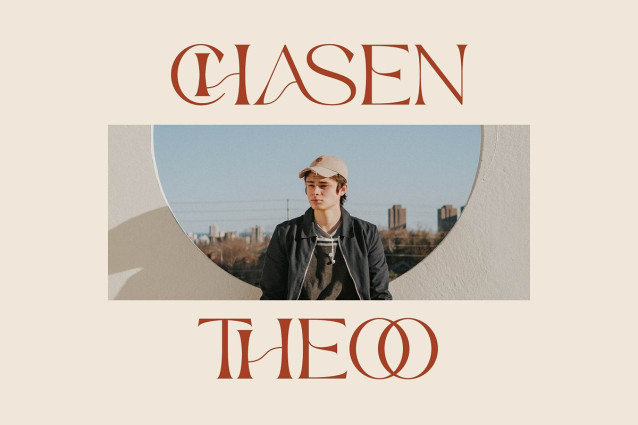
Maher Font
Maher Font – Stylish Ligature Typeface, inspired by the famous minimalist logo perfect for the purposes of designing templates, brochures, videos, advertising branding, logos and more.